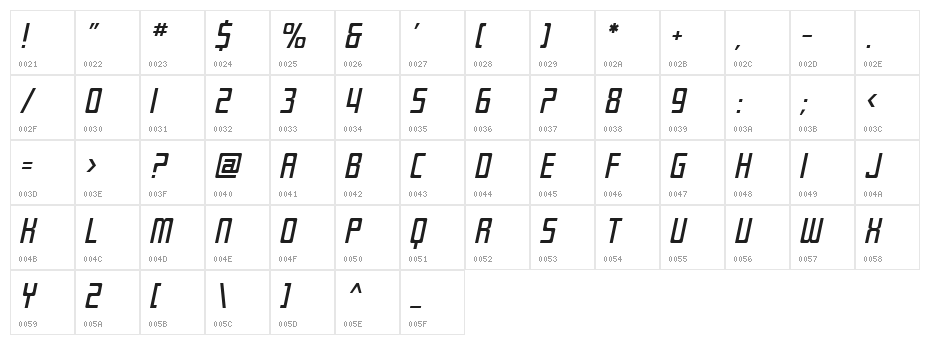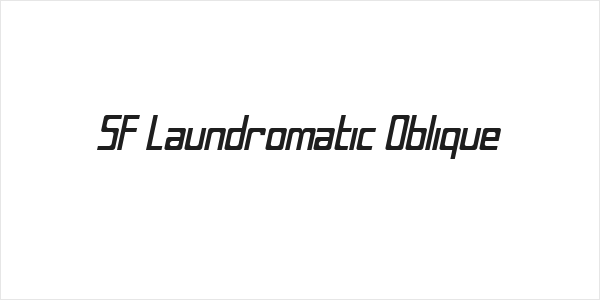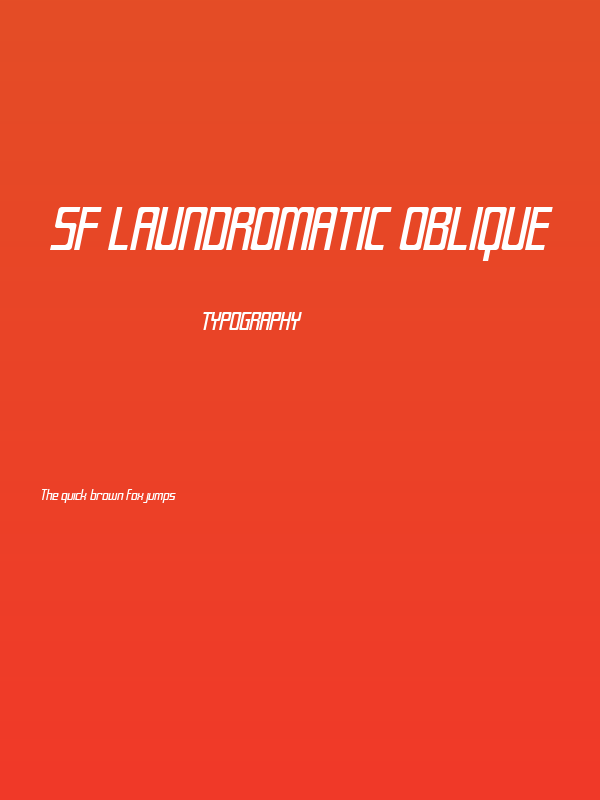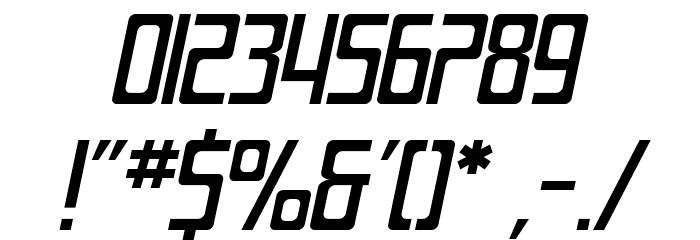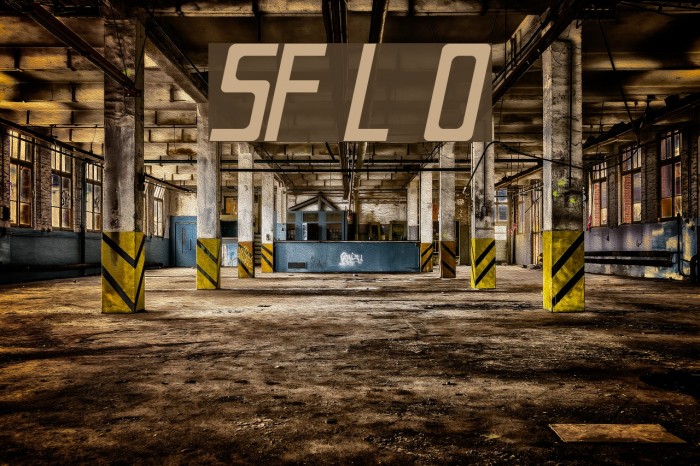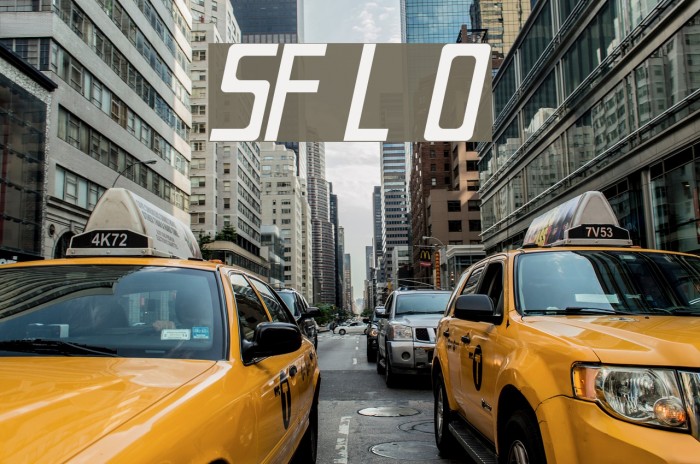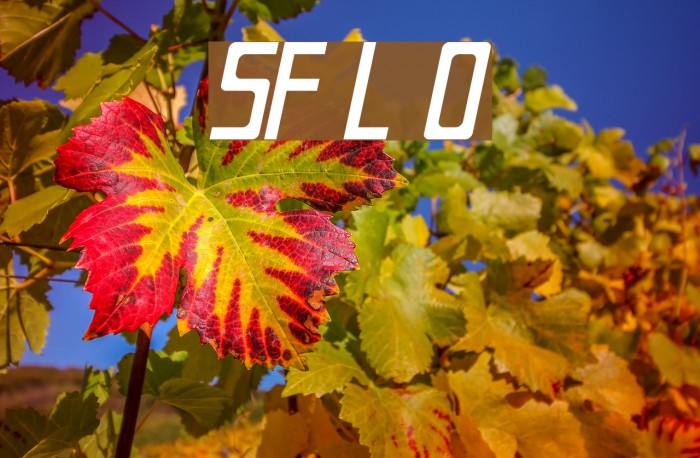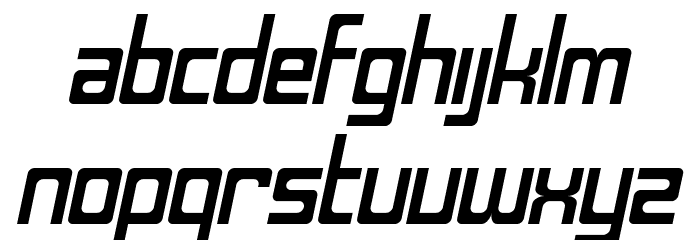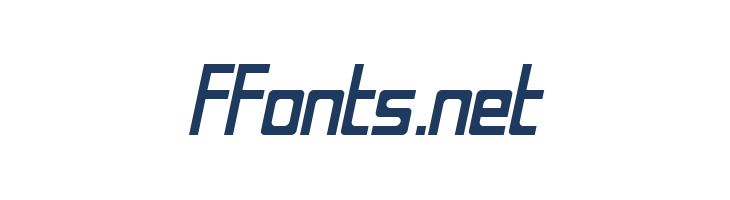
SF Laundromatic Oblique Font
SF Laundromatic Oblique Description
This font features a modern, geometric design with a distinct oblique slant, giving it a dynamic and forward-moving appearance. The characters are constructed with clean, straight lines and sharp angles, creating a futuristic and technical feel. The uppercase letters are tall and narrow, while the lowercase letters maintain a consistent height, contributing to a uniform look. The numerals and special characters follow the same design principles, ensuring a cohesive style throughout. The overall aesthetic is sleek and contemporary, making it suitable for projects that require a bold and innovative touch.
| Proposed Projects | Ideal for technology branding, sci-fi themed designs, modern posters, and innovative product packaging. |